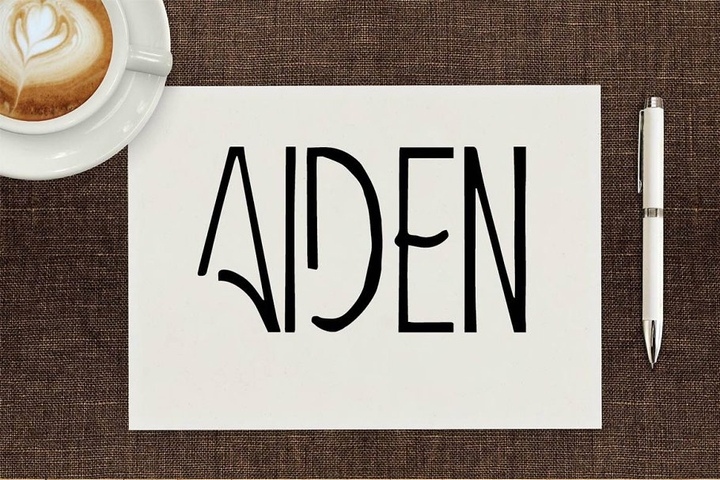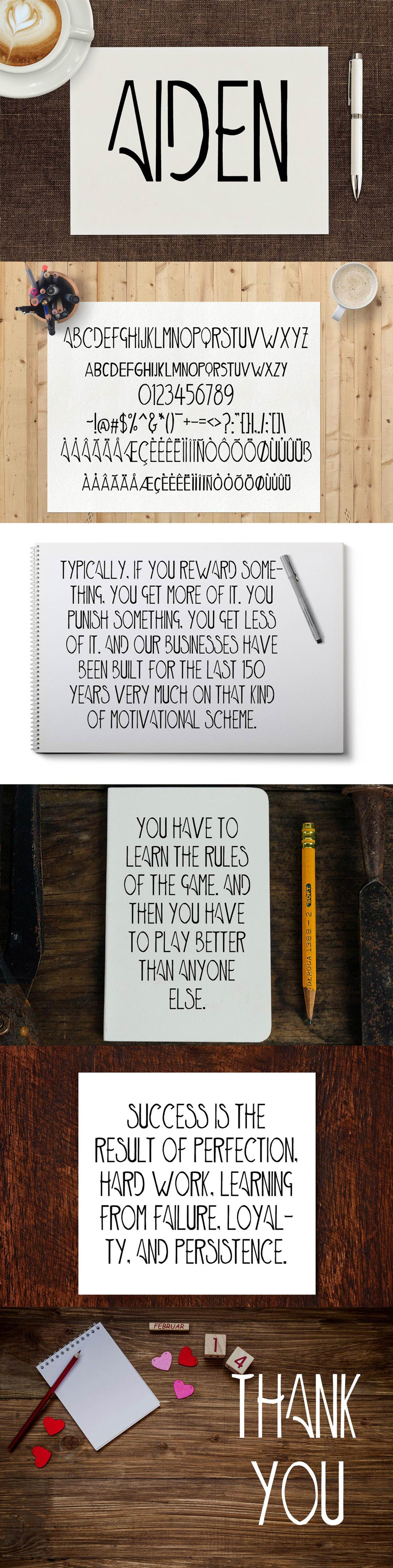
Aiden Art-Deco Font
Aiden Art-Deco Font is perfect for luxury hotel branding, vintage cocktail menus, jazz club posters, 1920s-themed events, premium cosmetics packaging, high-end fashion labels, glamorous wedding invitations, and sophisticated entertainment venues.
Aiden Art-Deco Font is exciting because it captures the glamorous spirit of the Jazz Age with geometric precision and ornamental elegance, featuring distinctive angular details and luxurious styling that evokes the golden era of design. Its sophisticated character creates timeless appeal with contemporary relevance.
Aiden Art-Deco Font family includes regular, bold, and ornamental variations with decorative elements and stylistic alternates, providing designers with comprehensive options for creating authentic Art-Deco inspired typographic masterpieces.
Creative professionals consistently select Aiden Art-Deco Font for projects requiring historical authenticity and glamorous visual impact. Its distinctive styling works magnificently in themed restaurants, boutique hotels, craft distilleries, and luxury retail environments where atmosphere and character differentiation are essential for customer engagement. The font's dramatic presence creates memorable brand experiences that transport audiences to the golden age of elegance and sophistication.
Design teams appreciate Aiden Art-Deco Font's ability to create instant brand recognition through its distinctive historical character and premium aesthetic appeal. Its timeless glamour transcends contemporary trends while maintaining the sophistication required for luxury market positioning, making it an essential tool for brands seeking to establish emotional connections through authentic vintage styling and exceptional visual craftsmanship.